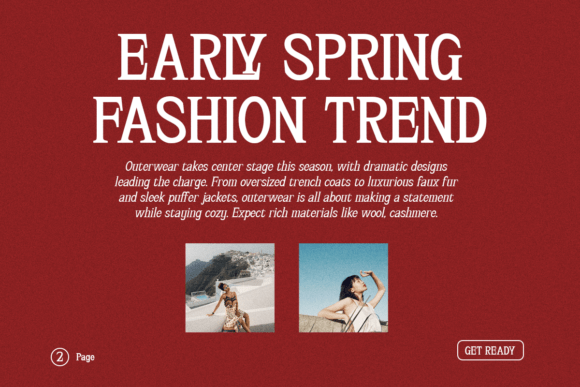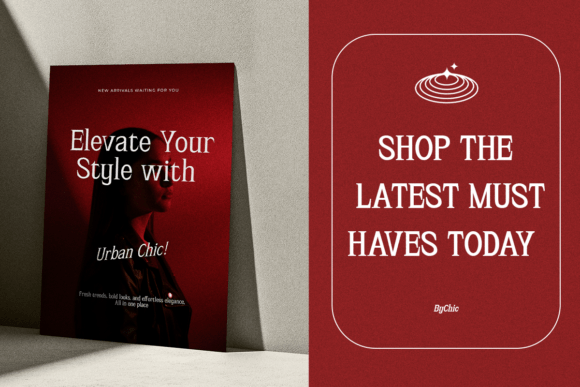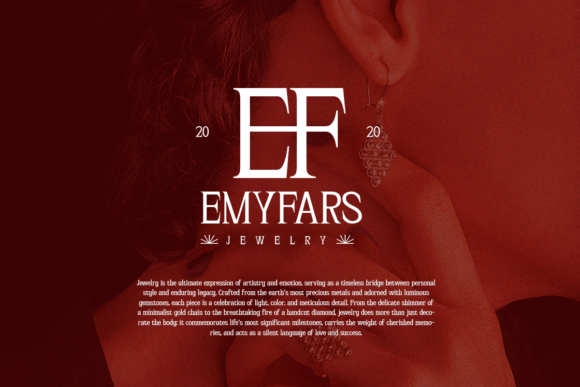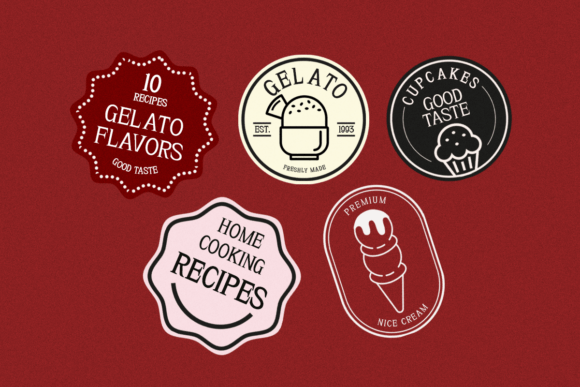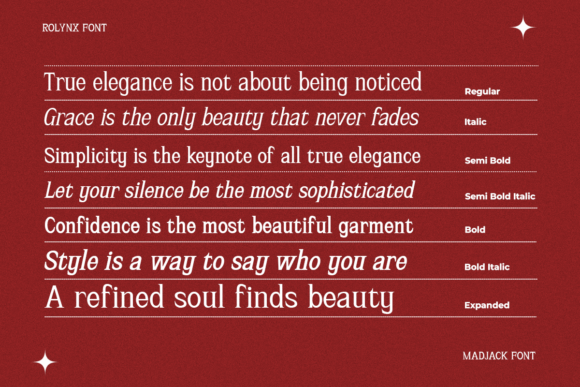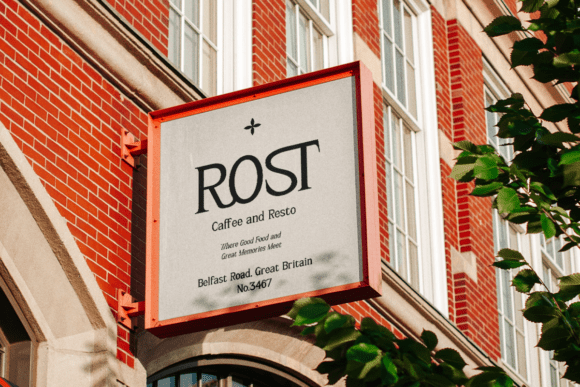
Introduction to Rolynx Family Font
Exude timeless luxury with Rolynx, a sophisticated serif family that captures a “prestigious-and-polished” soul.
This typeface features high-contrast letterforms uniquely characterized by rhythmic, hand-drawn ligatures—such as the elegant nested “LY” connection—and sharp, flared serifs that bridge the gap between classical Roman proportions and modern high-fashion editorial With its balanced structural weight and authoritative personality, Rolynx is the premier choice for independent luxury branding, artisanal fragrance labels, boutique hotel identities, and high-impact “stately-and-stylized” social media headers.
Key Features of Rolynx Family Font
Why Choose Rolynx Family Font?